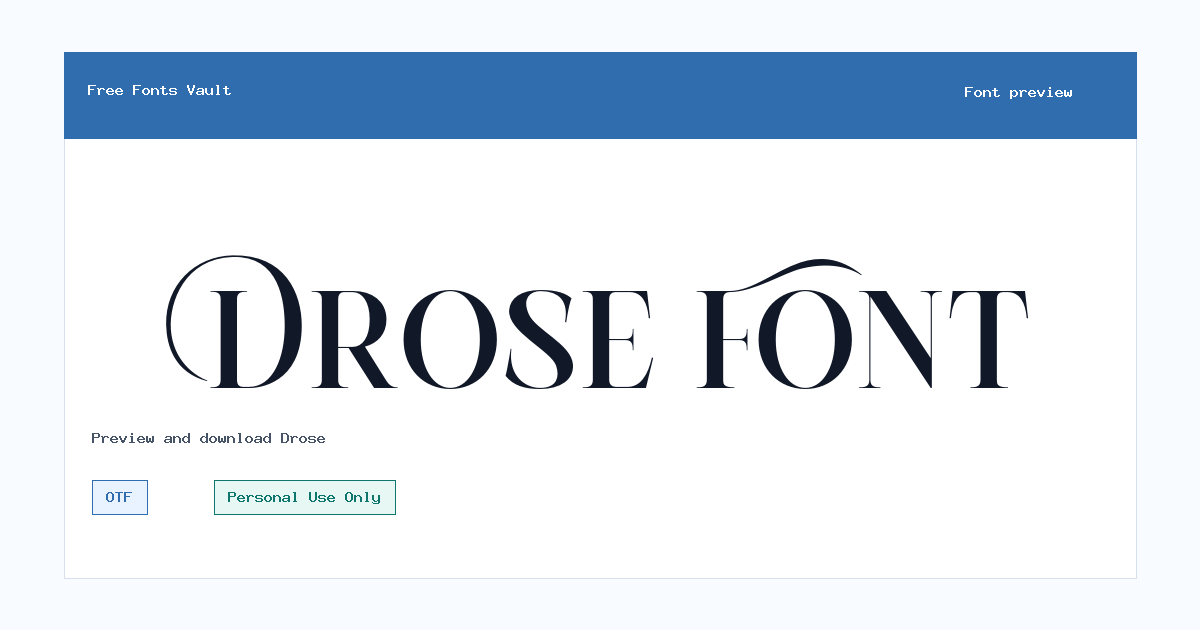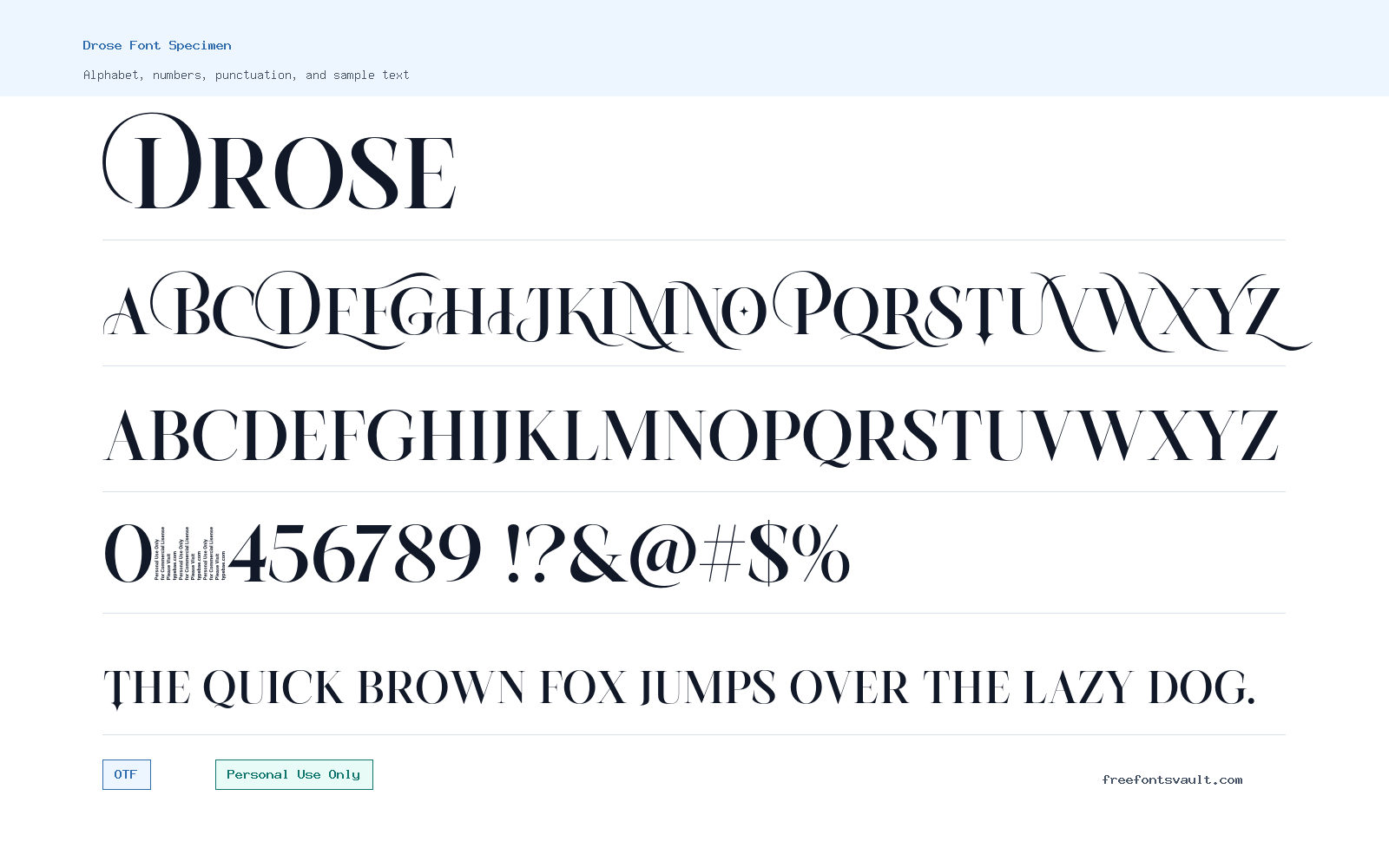
Drose
- Designer Iqbal Pauji
Drose is a serif font designed by Iqbal Pauji and shared for personal-use projects. It is a good font to test when you want a more formal, editorial, or display-focused look without moving into overly decorative lettering.
About Drose Font
Drose works best when treated as a serif display choice rather than a general all-purpose text face. Because the font is offered as a regular-weight OTF file, it is especially worth previewing in short phrases, titles, logo drafts, invitation-style layouts, poster headings, and web mockup hero text. Serif fonts often bring structure and contrast to a layout, but the real test is how the letter shapes behave at the size you plan to use. Try your own brand name, headline, or sample sentence in the preview before downloading so you can judge spacing, readability, and character fit.
For designers, Drose can be useful in early concept work where a clean serif mood is needed for personal projects. Test it in logo sketches, packaging mockups, social graphics, blog headers, and poster compositions where the type does not need to carry long paragraphs. If you plan to use it in a website mockup, check the OTF file in your design tool first and make sure the font renders well at different sizes. For body text, keep line length moderate and compare it with a simpler sans serif; many serif display fonts look stronger in headings than in dense reading blocks.
- Useful for short display text such as titles, names, posters, and logo drafts
- Single regular style, so weight contrast should be created through size, color, spacing, or pairing rather than extra font weights
- Personal logo concepts and name-based branding drafts
- Poster titles, quote graphics, invitations, and announcement layouts
- Editorial-style web mockups, blog headers, and hero sections
- Packaging or label mockups where a serif headline gives the layout a more composed tone
Start by testing Drose with the exact words you plan to use. Check uppercase and lowercase forms, punctuation, numbers, and any special characters your project needs. For pairing, use a plain sans serif for body copy so Drose can stay focused on headings or accent text. If the design feels too formal, increase white space and reduce extra effects. If it feels too light in a poster or logo draft, try larger sizing, tighter color contrast, or stronger supporting type rather than assuming another weight is included.
What should I pair with Drose?
Pair it with a simple sans serif for paragraphs, captions, and interface text. Let Drose handle headlines or short accent lines so the layout stays readable.
Is Drose suitable for long body text?
Test it carefully before using it for long passages. With only a regular style listed, it is usually safer to use Drose for headings and pair it with a more neutral text font for reading-heavy sections.